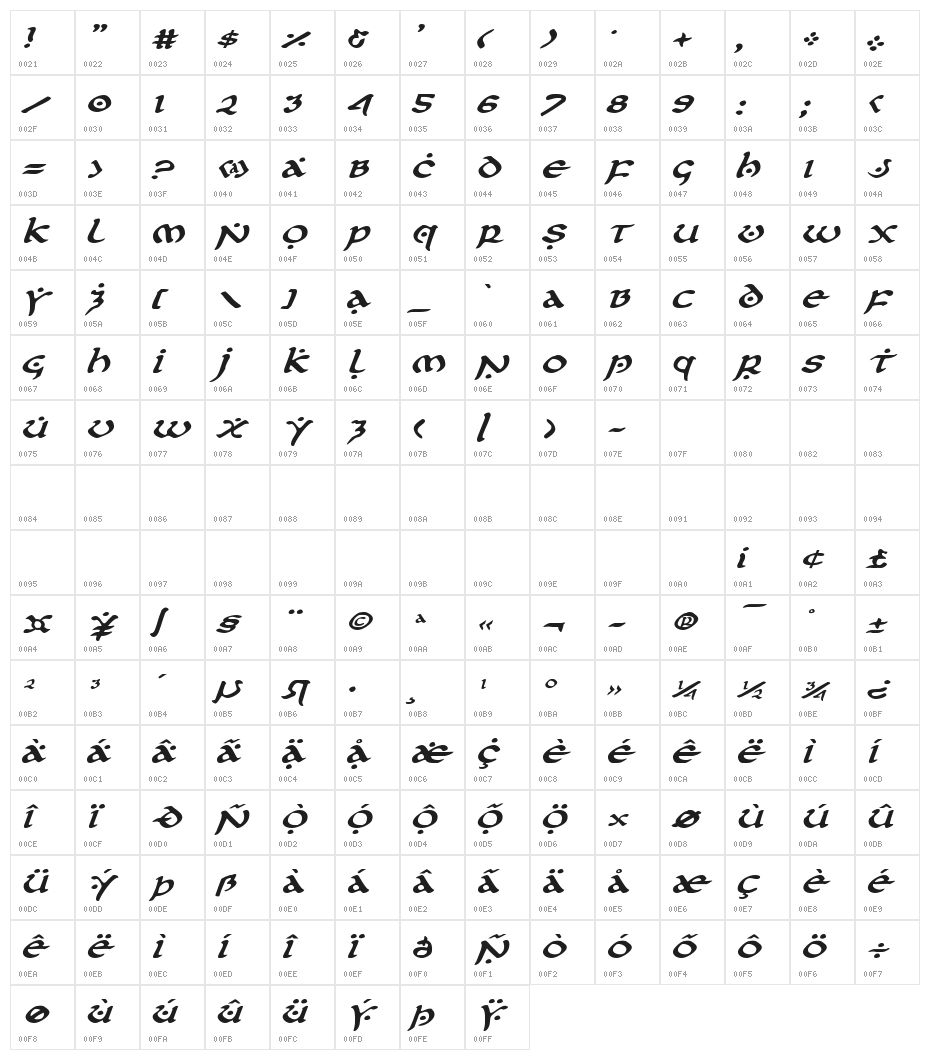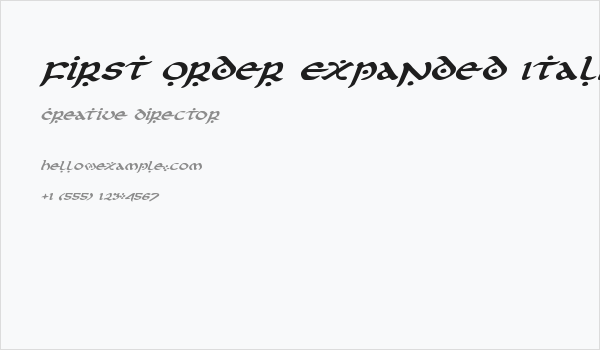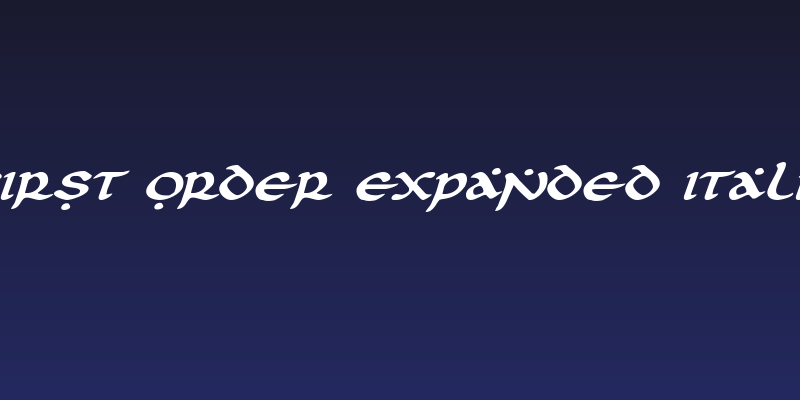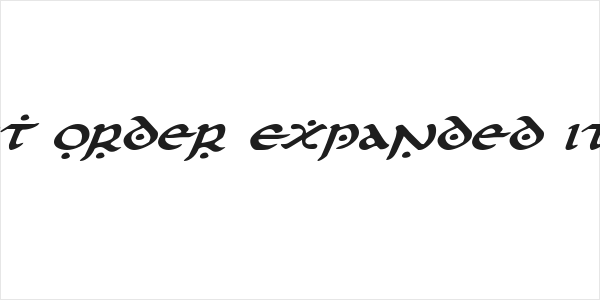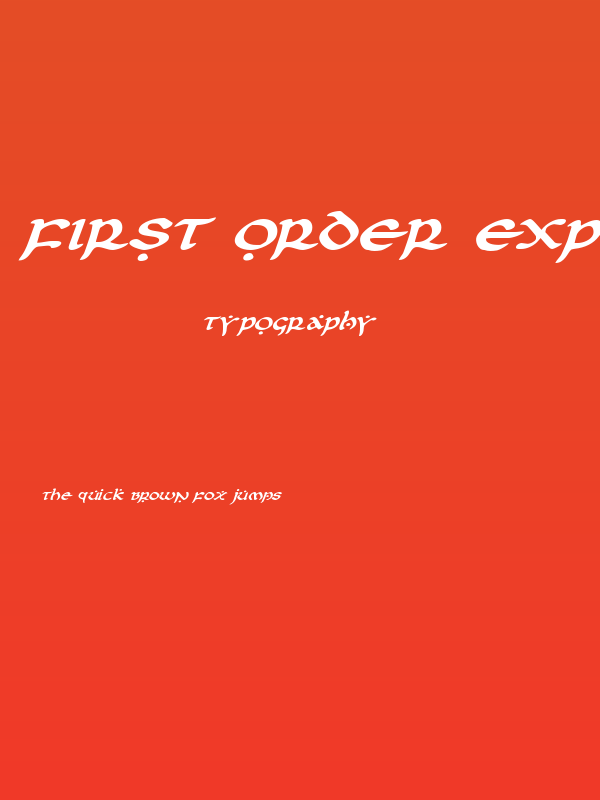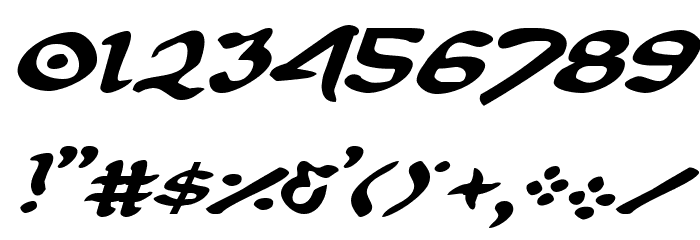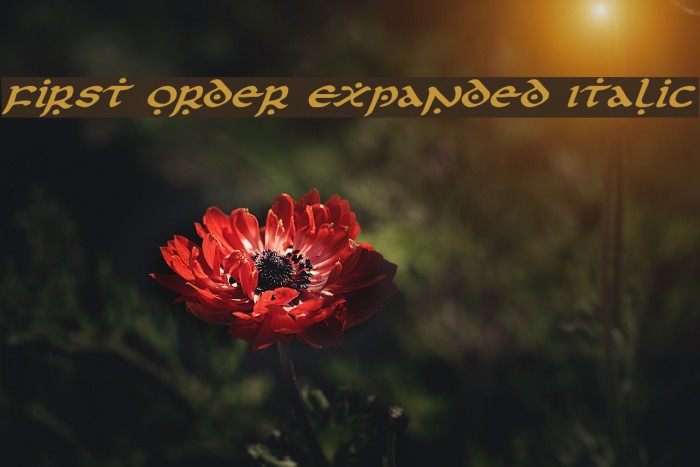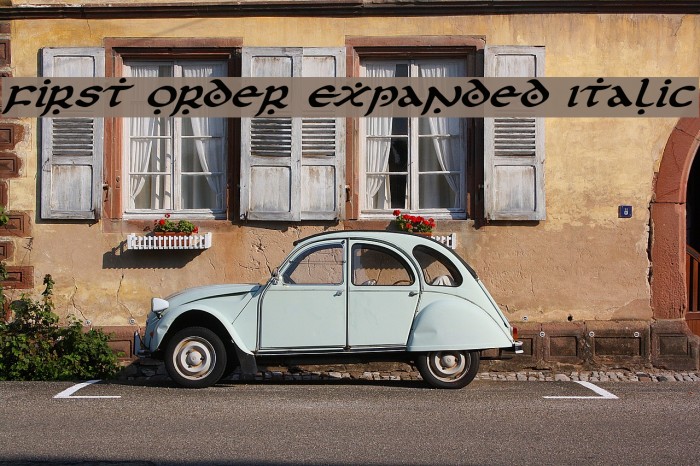
First Order Expanded Italic Font
First Order Expanded Italic Description
This font features a distinctive and dynamic style with an italicized and expanded appearance. The characters exhibit a fluid and flowing design, reminiscent of calligraphic influences. Each letter is crafted with a unique flair, incorporating rounded edges and subtle curves that enhance its artistic appeal. The font maintains a consistent weight throughout, providing a bold and impactful presence. Its expanded width allows for a spacious and airy feel, making it suitable for creative and expressive projects. The high contrast between thick and thin strokes adds to its visual interest, making it stand out in various design contexts.
| Use Case | Headlines, Logos, Artistic projects |
| Proposed Projects | Ideal for artistic projects, branding, posters, and creative headlines. |